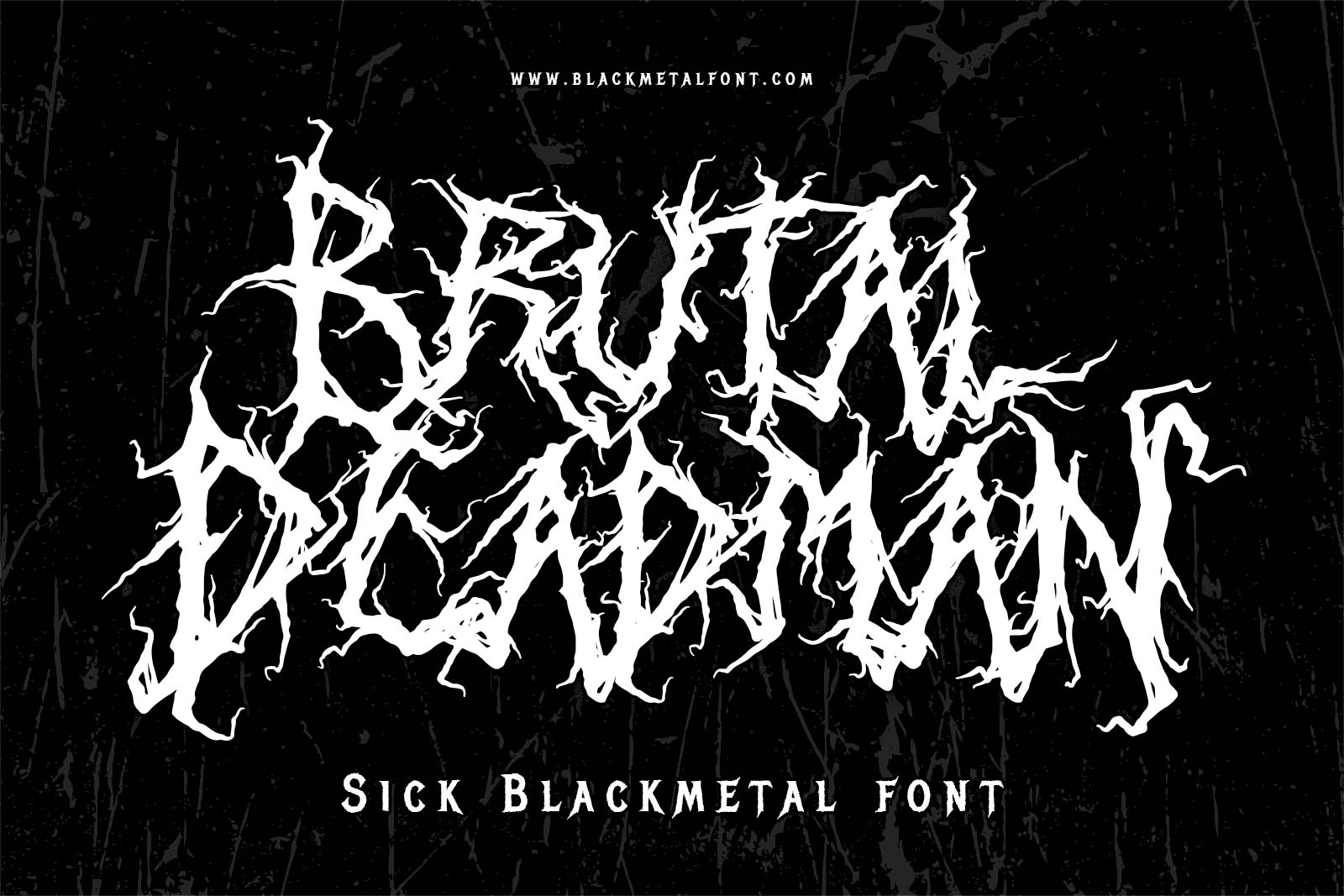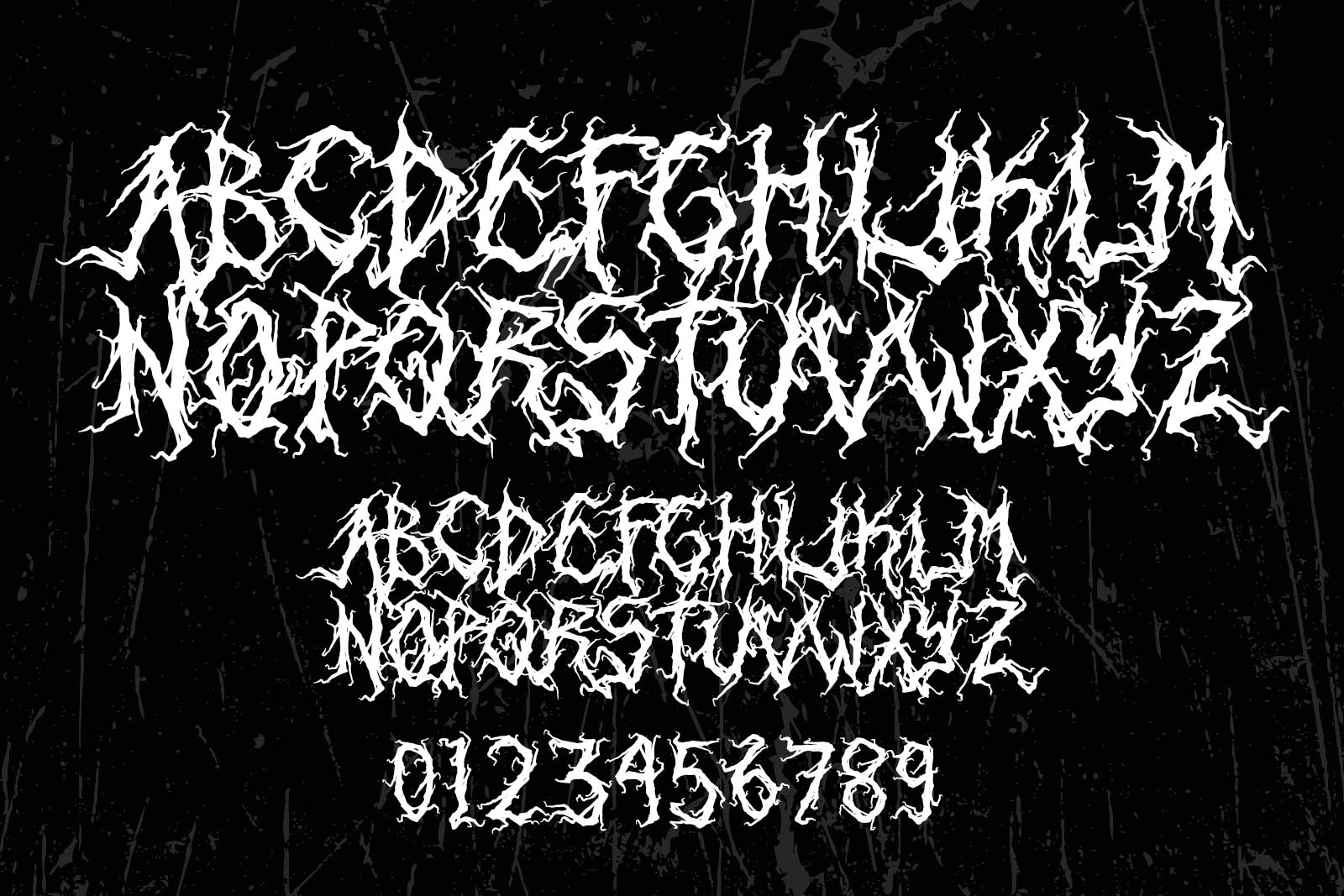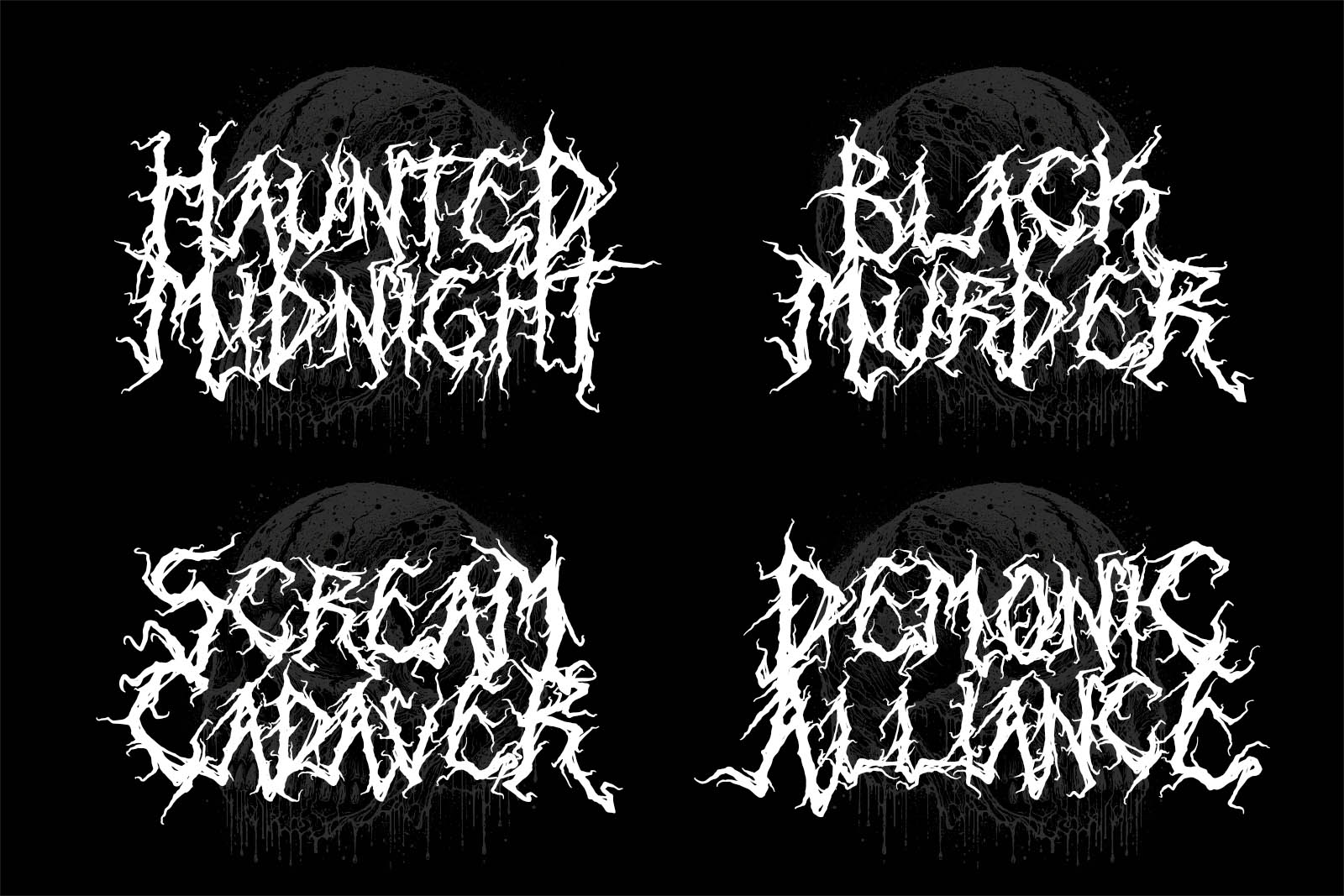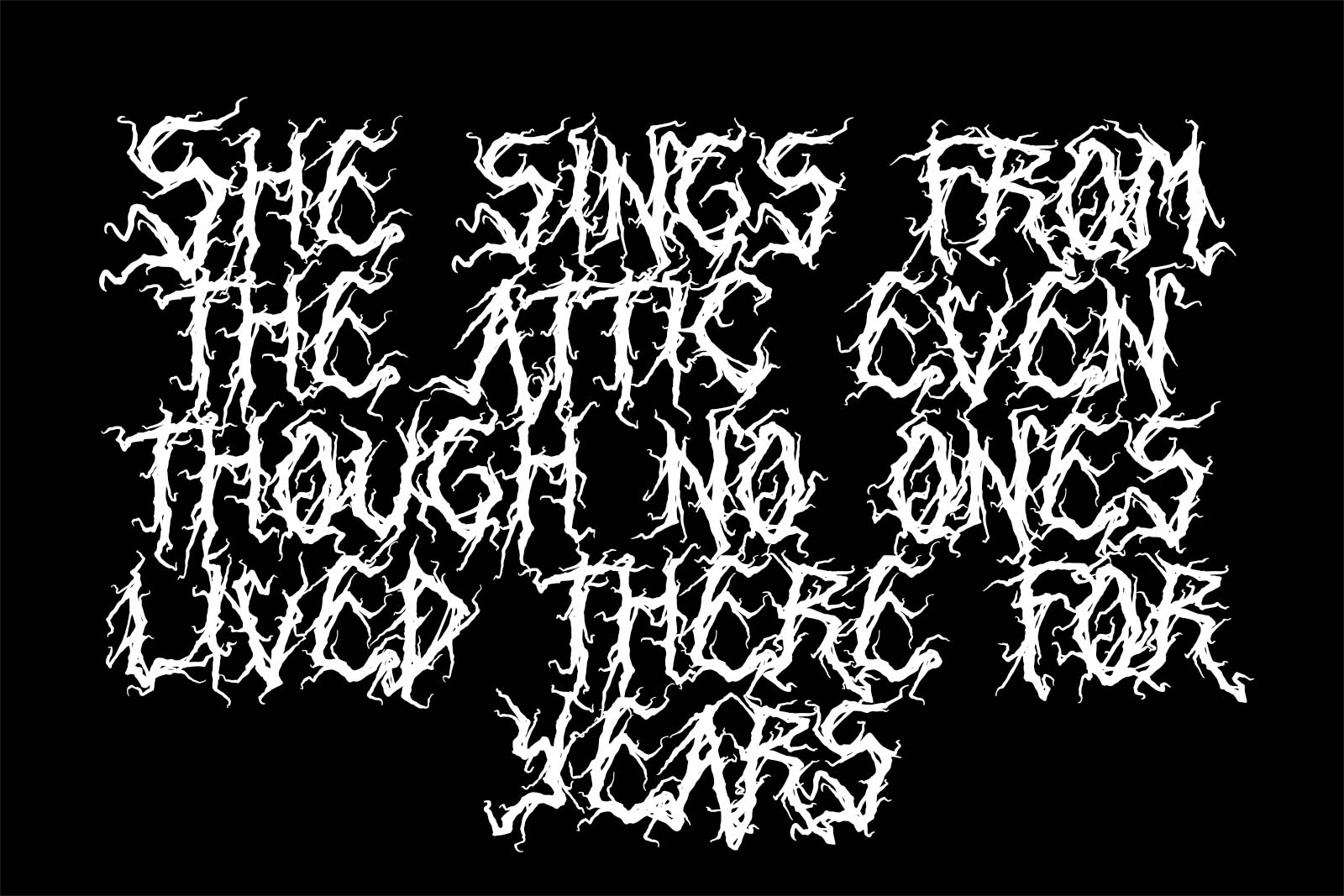
Brutal Deadman Blackmetal Font
Brutal Deadman is a ferocious black metal font carved in chaos and dripping with decay. Each letter is a twisted root of darkness—sharp, irregular, and brutal to the core. Designed for extreme music bands, horror posters, underground merch, and metal-themed visuals that demand a raw and savage impact. The terrifying, vein-like shapes evoke the look of rotting branches or corpse roots, making your design scream with blackened energy.
This font is handcrafted for brutality—perfect for death metal logos, festival flyers, dark apparel, and anything that thrives in the shadows.